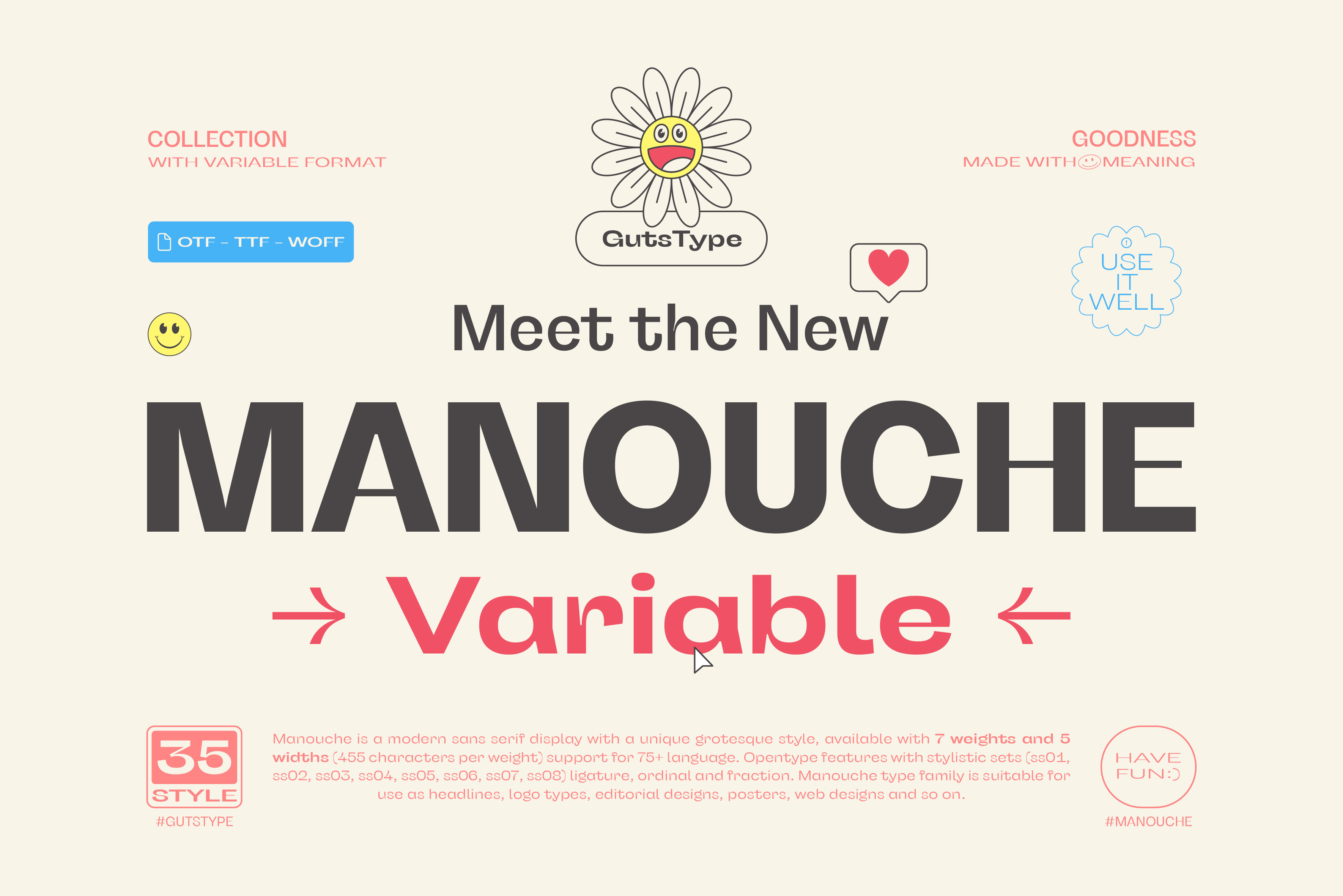
Manouche Font Family
Manouche is a modern sans serif display with a unique grotesque style, available with 7 weights x 5 widths (Thin - ExtraLight - Regular - Medium - Bold - ExtraBold) x (Condensed - Semi Condensed - Normal - SemiExpanded - Expanded) and is also available in variable format . Manouche type family is suitable for use as headlines, logo types, editorial designs, posters, web designs and so on.
Manouche also comes with OpenType features with Stylistic Sets (ss01, ss02, ss03, ss04, ss05, ss06, ss07, ss08), ligature, ordinal and fraction. There are 455 characters in each style type and it supports more than 75 languages.